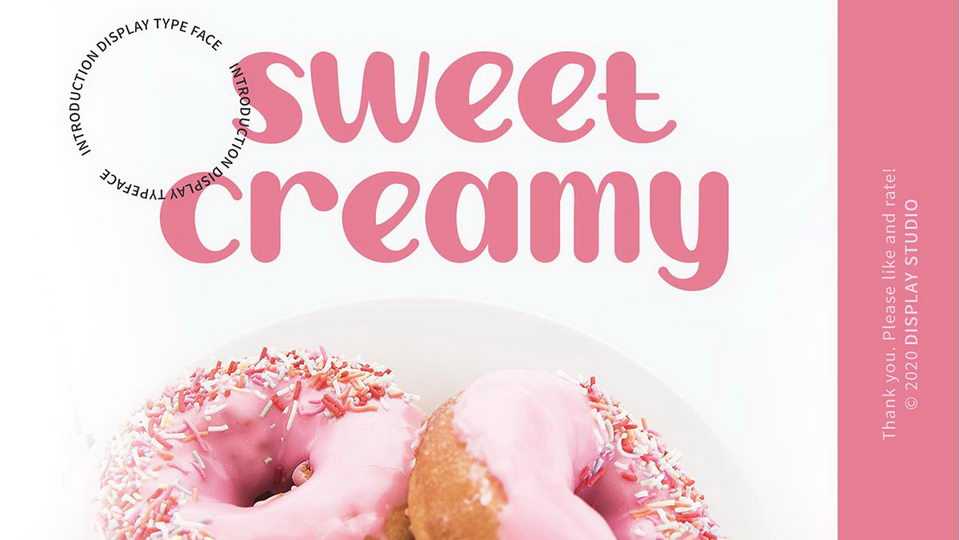
Download Sweet Creamy font, a lovely and cute handwritten typeface. Sweet Creamy is perfect for notes, recipes, crafts, cards and other projects.
Designer: Display Studio